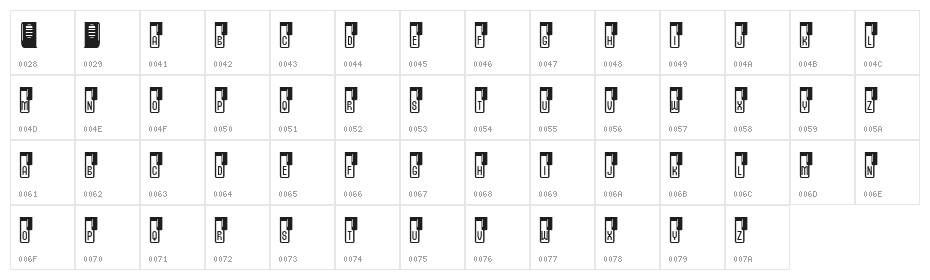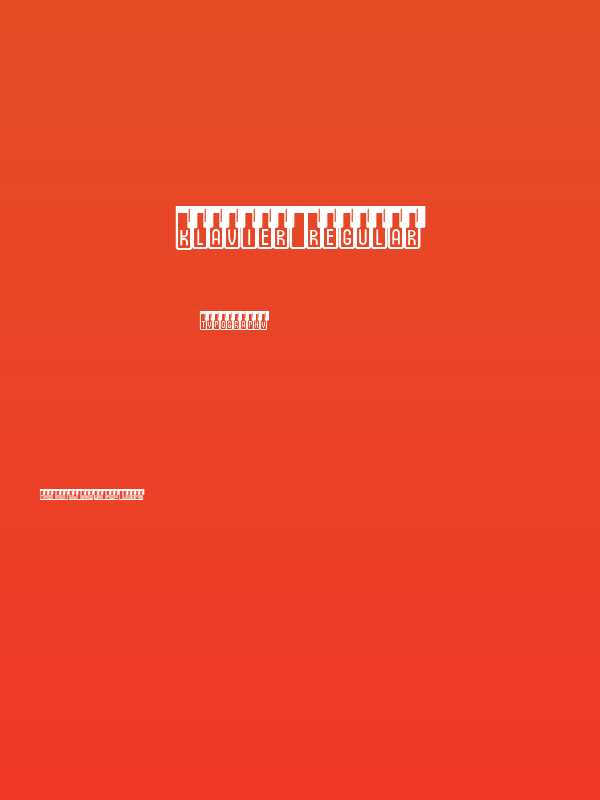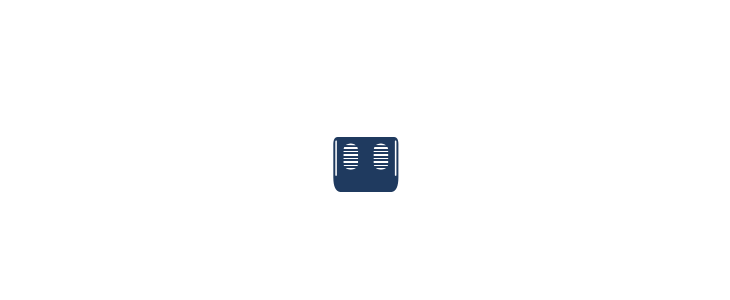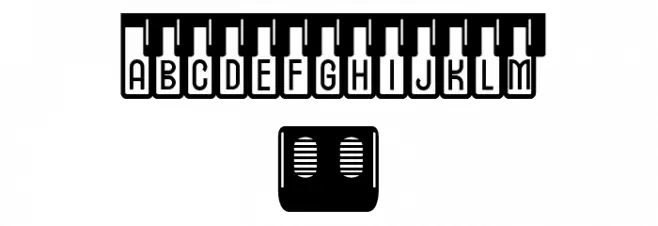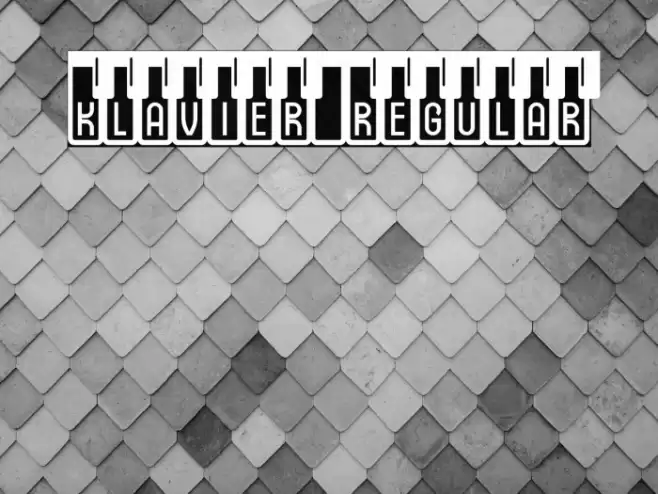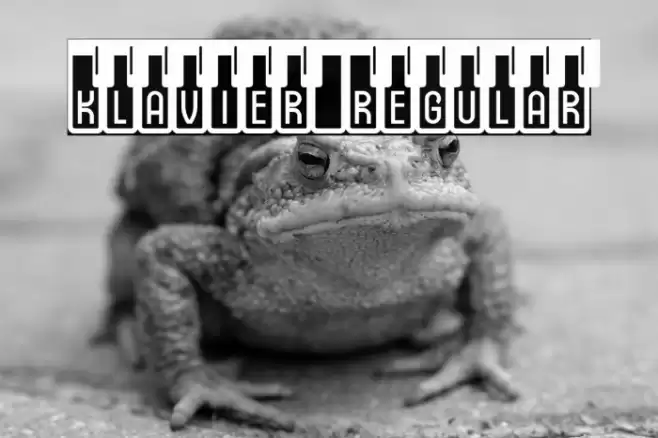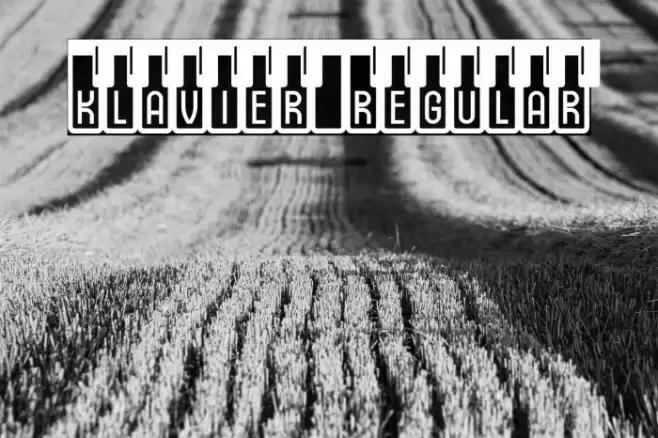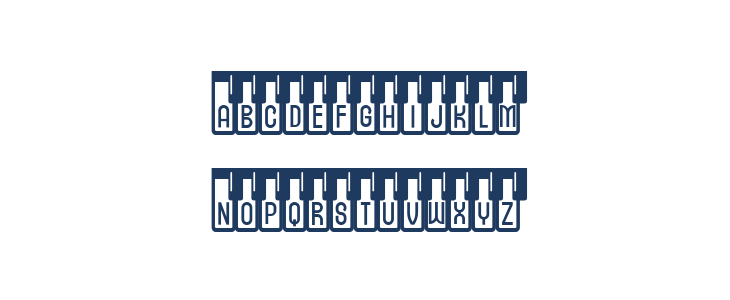
Klavier Regular Font
Klavier Regular Description
This decorative font is inspired by the design of piano keys, with each character enclosed within a key-like shape. The letters are bold and uppercase, offering a unique and playful aesthetic that mimics the appearance of a piano keyboard. The font's design is highly stylized, making it ideal for creative projects that require a musical or artistic theme. The characters are evenly spaced within their key outlines, providing a consistent and structured look. This font is perfect for projects that aim to capture the essence of music and creativity, offering a distinct visual appeal.
| Use Case | Logos, Headlines, Posters |
| Proposed Projects | Ideal for music-themed posters, album covers, event invitations, and creative branding projects. |